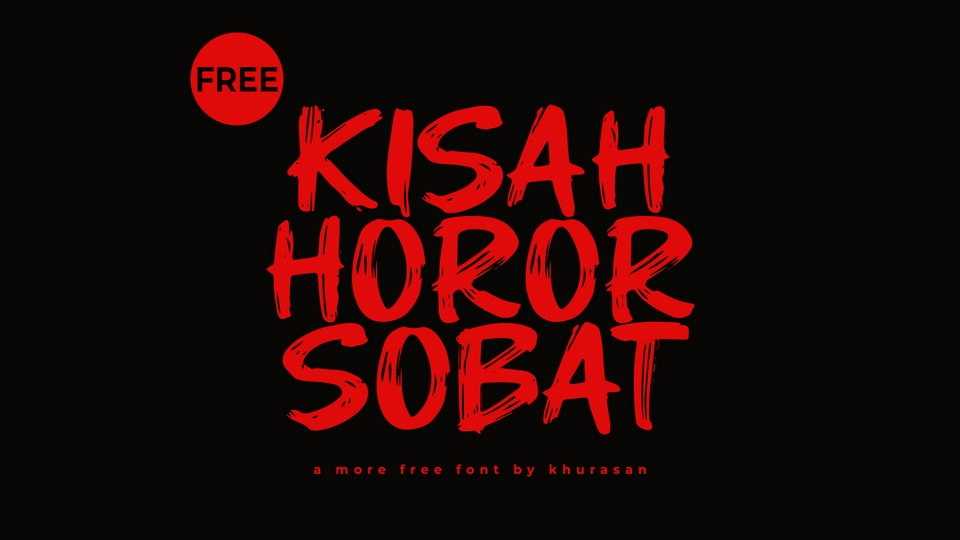
Download Kisah Horor Sobat font, a rough and textured hand-painted brush typeface that exudes raw, artistic energy. It features bold, dynamic letterforms with rugged edges and uneven textures.